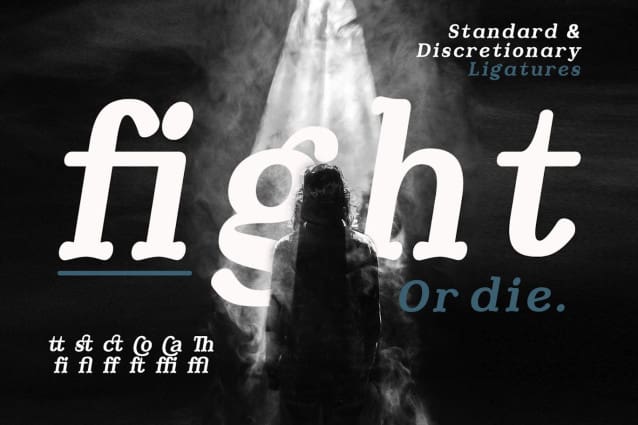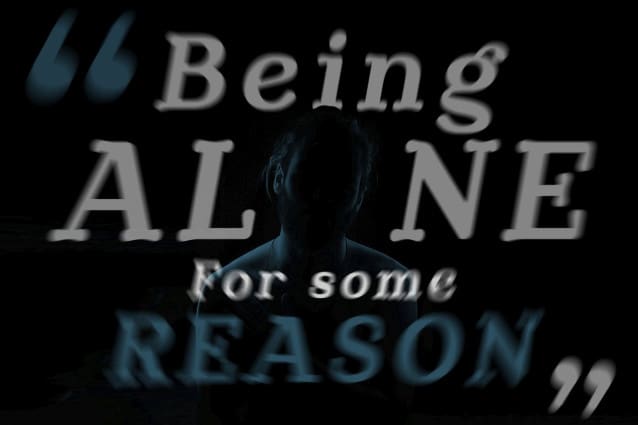
Kitward Font
Kitward Font is a rounded serif mystery font. Offers all the basic mystery styles you’ll need for a successful project, especially for the Halloween theme.